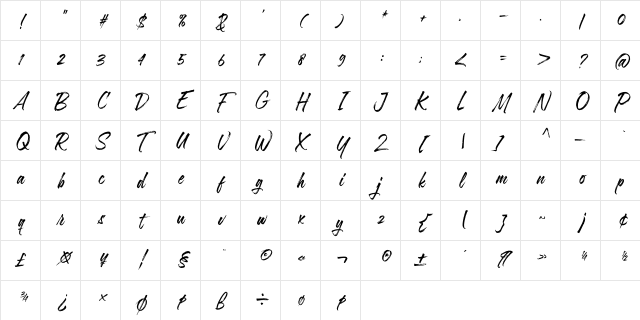
Complete Maulida Maya Regular glyph index. Displaying only characters natively supported by Maulida Maya Regular font.
Maulida Maya is a composed and adaptable typeface that performs quietly and consistently across a wide range of design contexts.